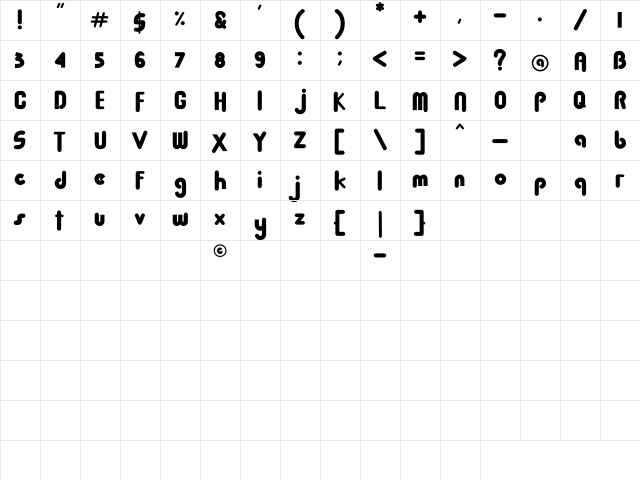
Baby Dollar Regular Free Font
Baby Dollar Regular
Designer: hindro cholis
Design Context for Baby Dollar
Baby Dollar is a composed and adaptable typeface that performs quietly and consistently across a wide range of design contexts.